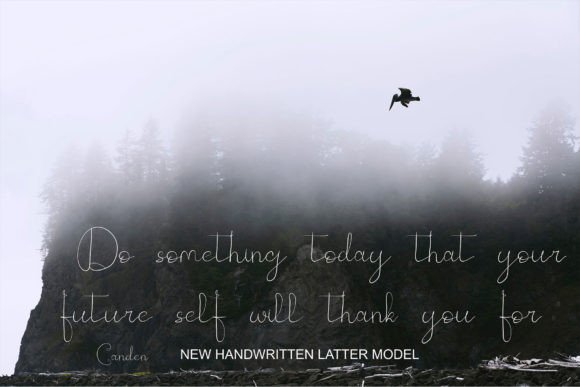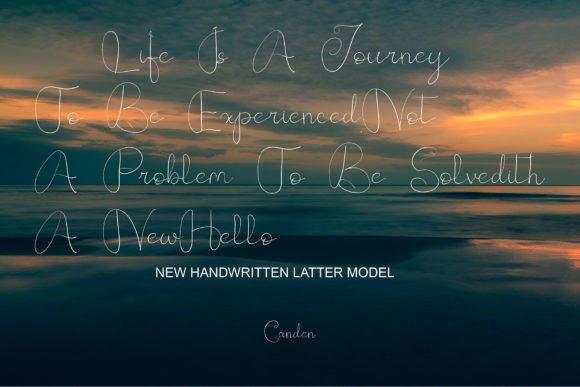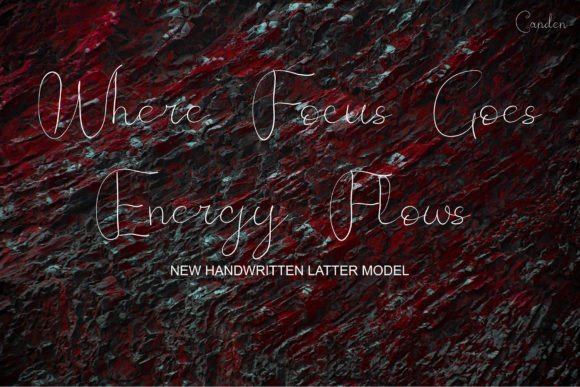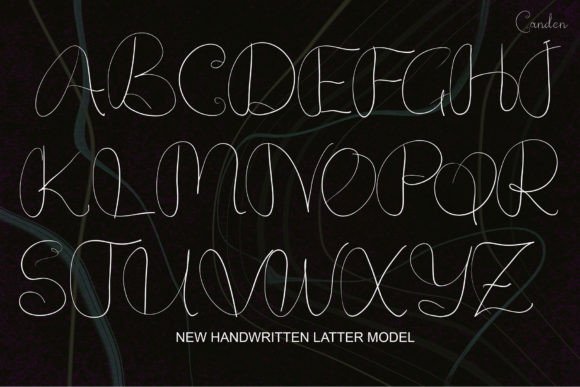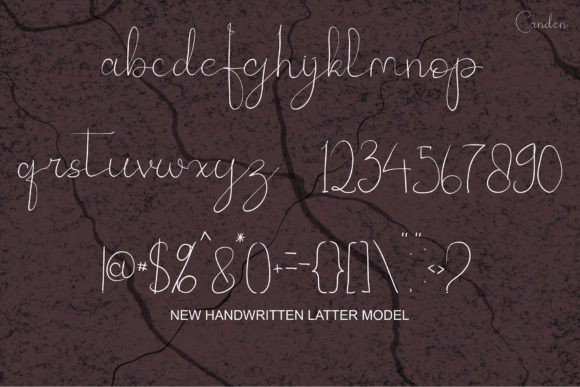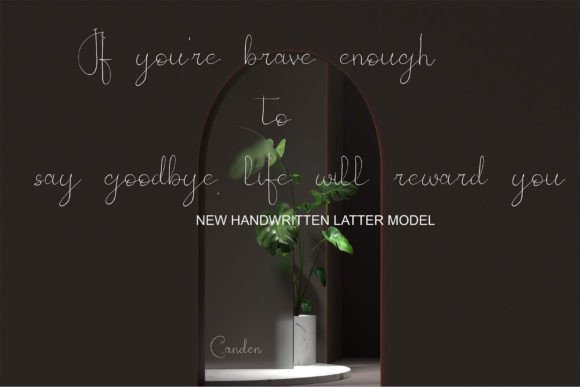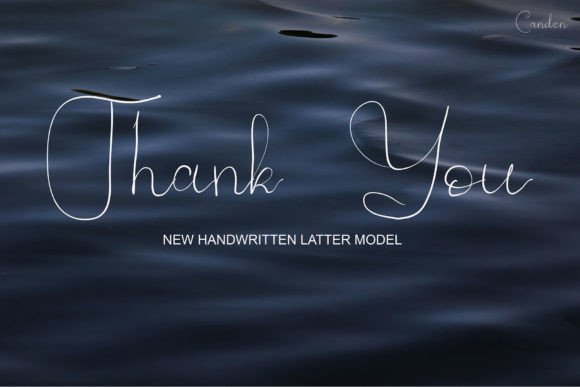
Gabanchi Jikbutik Font
“Gabanchi Jikbutik” is a unique font crafted by hand using a pen tablet, adding a personal touch to its design. This font is versatile and finds application in various digital platforms, particularly for websites and advertising purposes, including product ads and other promotional materials. Despite its apparent simplicity, “Gabanchi Jikbutik” manages to exude a cool and stylish vibe.
The handwritten nature of the font, created with a pen tablet, brings an authentic and human touch to the digital realm. This personal touch is particularly valuable in web design, where a sense of connection and authenticity can enhance the user experience.
For websites, “Gabanchi Jikbutik” becomes a distinctive choice for conveying information in a handwritten style. It can be used for headings, subheadings, or other textual elements, adding a touch of individuality to the overall design.
In the realm of advertising, especially for product ads, this font offers a cool and stylish aesthetic. Its simplicity doesn’t compromise its visual appeal; rather, it contributes to a modern and approachable look that resonates well in digital and print advertisements.
The versatility of “Gabanchi Jikbutik” allows it to adapt to different design contexts, making it suitable for a range of promotional materials. Whether used in social media graphics, banners, or other advertising mediums, the font adds a handwritten charm that captures attention.
The cool and stylish qualities of the font make it a suitable choice for brands or projects that want to convey a sense of modernity and approachability. The simplicity of the design ensures that the message is communicated clearly while maintaining a visually appealing aesthetic.
In summary, “Gabanchi Jikbutik” is not just a font; it’s a tool for bringing a handwritten, cool, and stylish touch to digital and advertising projects. Whether you’re a web designer aiming for a personalized feel or a marketer looking to enhance the visual appeal of your advertisements, this font offers a creative solution that combines simplicity with modern style.